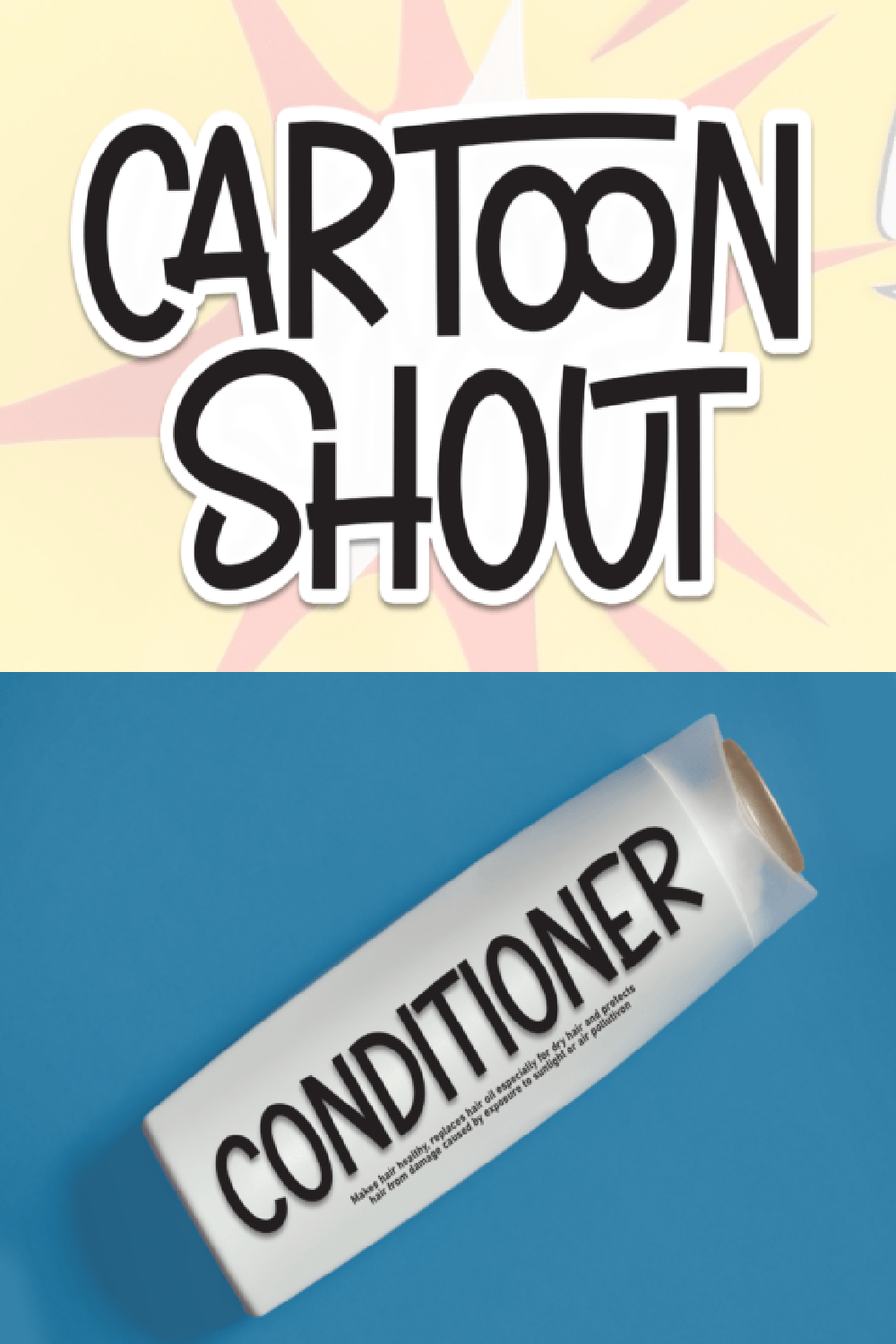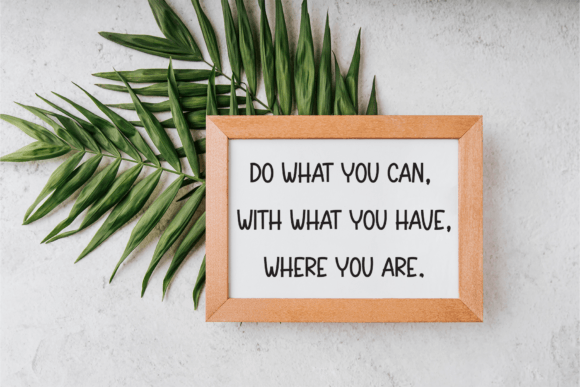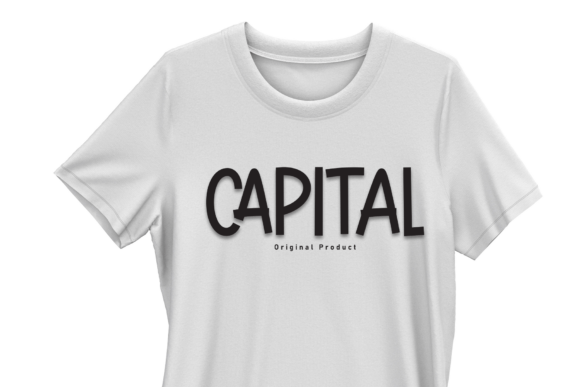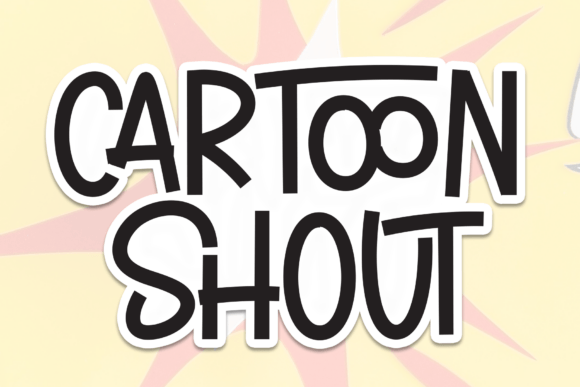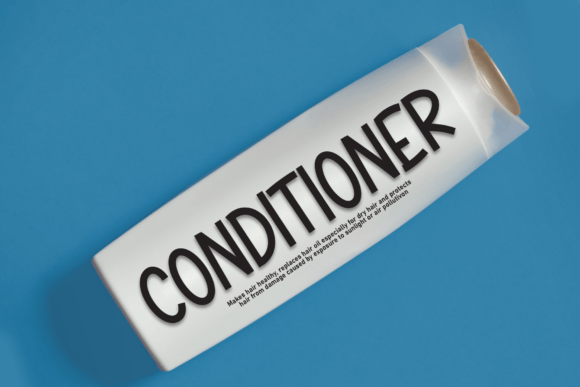
Cartoon Shout Font: A Playful Display Font for Posters & DIY Crafts
About the Cartoon Shout Font
Meet Cartoon Shout Font, a stunning font that brings a touch of elegance and professionalism to any design. Cartoon Shout is a playful and bold display font, perfect for adding a fun, energetic vibe to your designs. Its chunky, bubbly letters make it ideal for comic books, posters, or anything that needs a cheerful and lively touch.